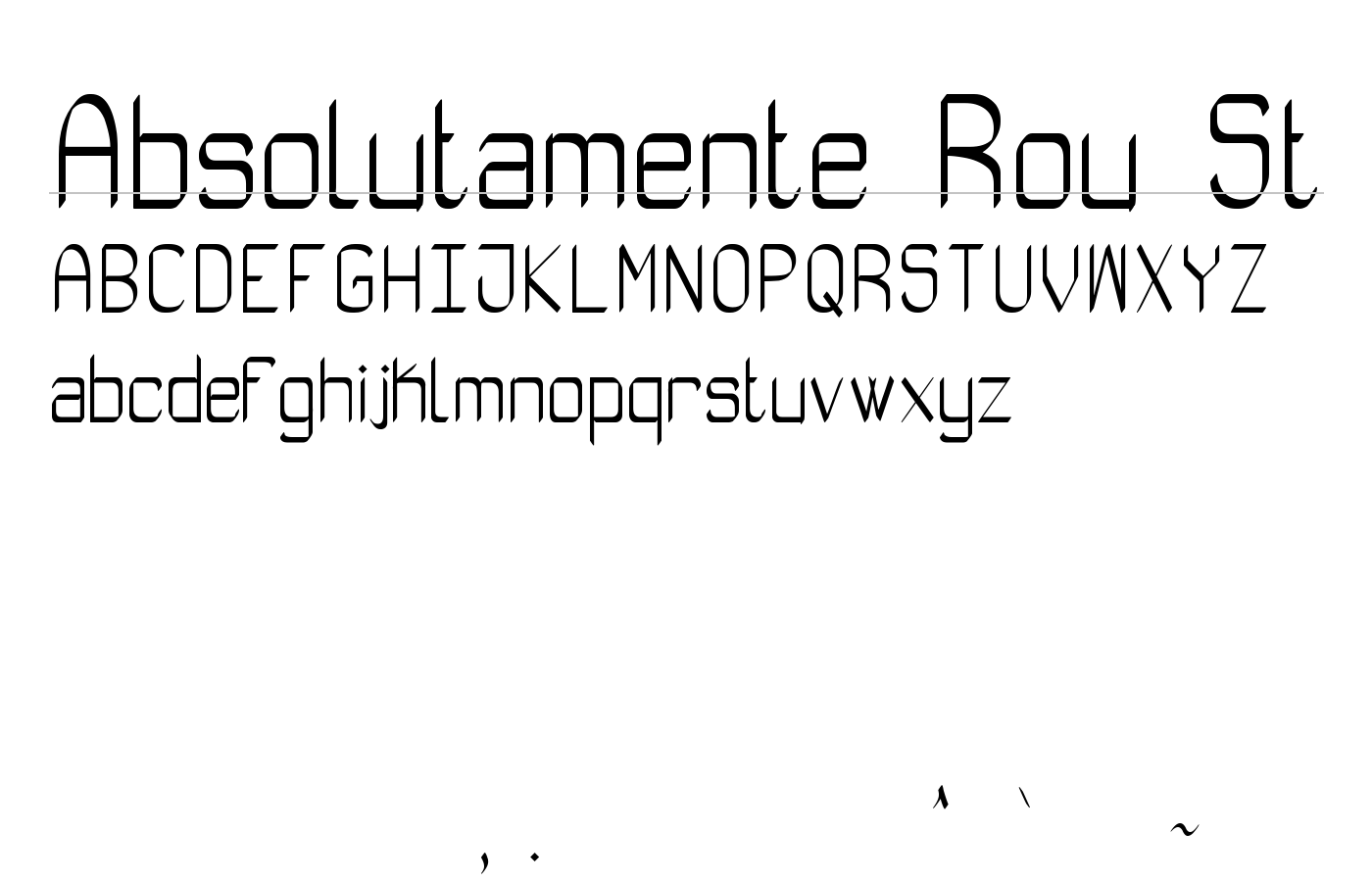
Absolutamente Rou St is a sleek, narrow sans serif font with a modern, geometric edge and lightly calligraphic stroke endings. Its clean lines, tall x-height, and tight letter spacing create an elegant yet technical feel, making it ideal for contemporary branding, editorial design, and headlines that need a distinctive, futuristic touch. This font works well where a refined but unconventional style is desired, adding personality without sacrificing clarity.
Absolutamente Rou St Font
About Absolutamente Rou St Font